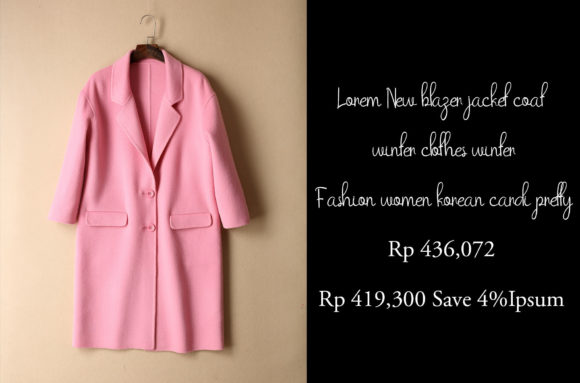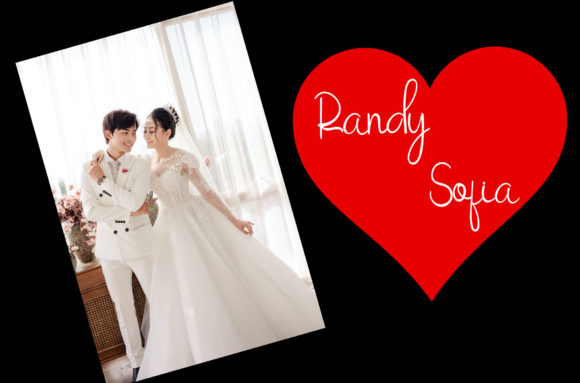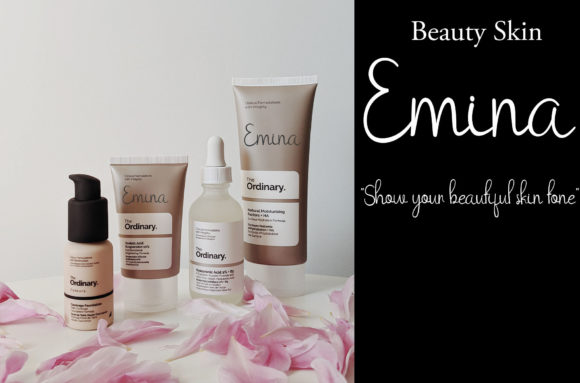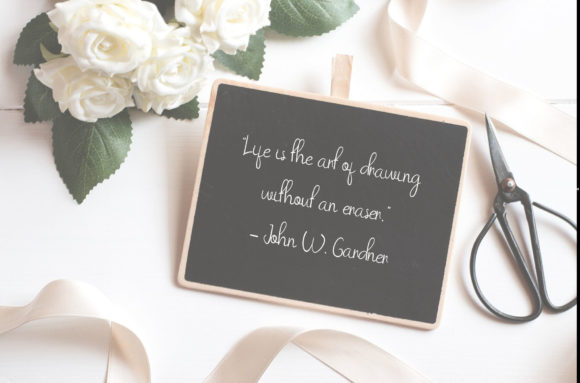
The Bunny Font: A Fashionable and Delicate Script Font for Your Creative Projects
Have you ever been in the middle of a design project, and suddenly, you just can’t seem to find the right font? I recall a particularly frustrating experience while working on a branding project for a client’s Easter-themed products. The client wanted a font that was both elegant and playful, but I just couldn’t seem to find the perfect fit. That’s when I stumbled upon the Bunny font, and it completely transformed my design.
The Bunny font is a fashionable and delicate script font that has become a staple in my design toolkit. Its elegant and cursive style makes it perfect for a wide range of projects, from logos and branding to labels, photography, and even special events.
What I Love About Bunny Font
So, what makes the Bunny font so special? Here are a few things that I absolutely love:
• ✨ Fashionable and delicate design: The Bunny font has a unique and stylish design that adds a touch of elegance to any project.
• ✅ PUA encoded: The font is PUA encoded, which means you can access all of the amazing glyphs and ligatures with ease.
• 💕 Perfect for script-themed projects: Whether you’re working on a wedding invitation, a branding project, or a special event, the Bunny font is sure to add a touch of sophistication and style.
Honest Review: The Not-So-Perfect Bunny Font
While the Bunny font is an amazing addition to any design project, there are a few quirks to be aware of:
• 🤔 Limited use in non-script contexts: While the Bunny font is perfect for script-themed projects, it may not be the best fit for more formal or corporate designs.
• ⚠️ Requires OpenType features: To get the most out of the Bunny font, you’ll need to use OpenType features, which can be a bit tricky to navigate if you’re new to font design.
The Story Behind Bunny Font
The Bunny font was designed by a team of talented font designers who wanted to create a unique and stylish script font that would add a touch of elegance to any project. Inspired by the beauty of handwritten scripts, the Bunny font is a perfect blend of classic and modern design.
What is the Bunny font? The Bunny font is a fashionable and delicate script font that’s perfect for a wide range of design projects.
Is the Bunny font PUA encoded? Yes, the Bunny font is PUA encoded, which means you can access all of the amazing glyphs and ligatures with ease.